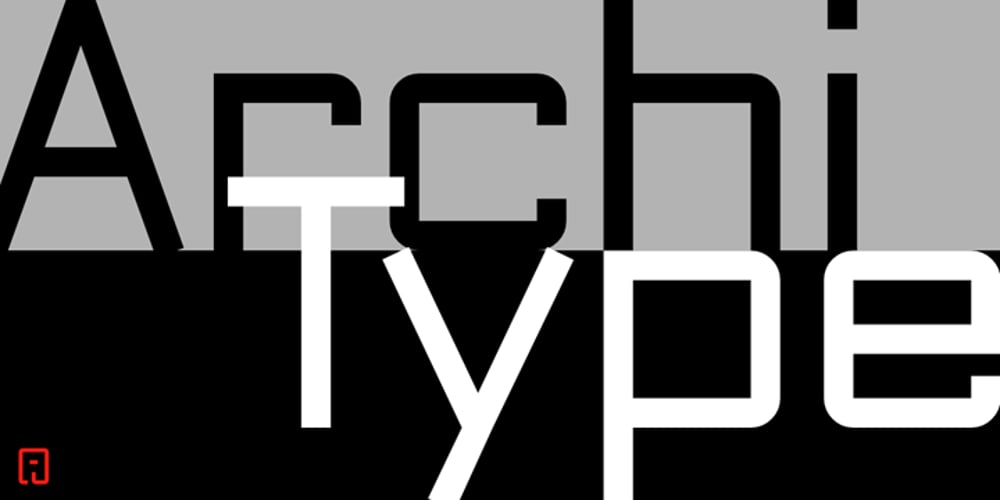
ArchiType
ArchiType font
ArchiType Font Family was designed by published by Archiness. ArchiType contains 12 styles and family package options. With the famous and much used Eurostile and Bank Gothic in my mind I wanted to design a mono-line font as simple and legible as possible. A square with rounded corners, i.e., the letter ‘o’ as its basis. From there on back to basics, so straights remained simple straights with 90° endings, whatever the angle. Numbers are monospaced. The result seems to be a pleasantly balanced and neutral font. Excellent for display purposes and surprisingly legible in even small sizes. This perhaps typical approach by an architect led to the name of the font: ArchiType.